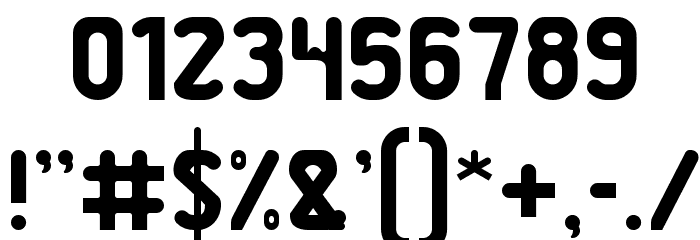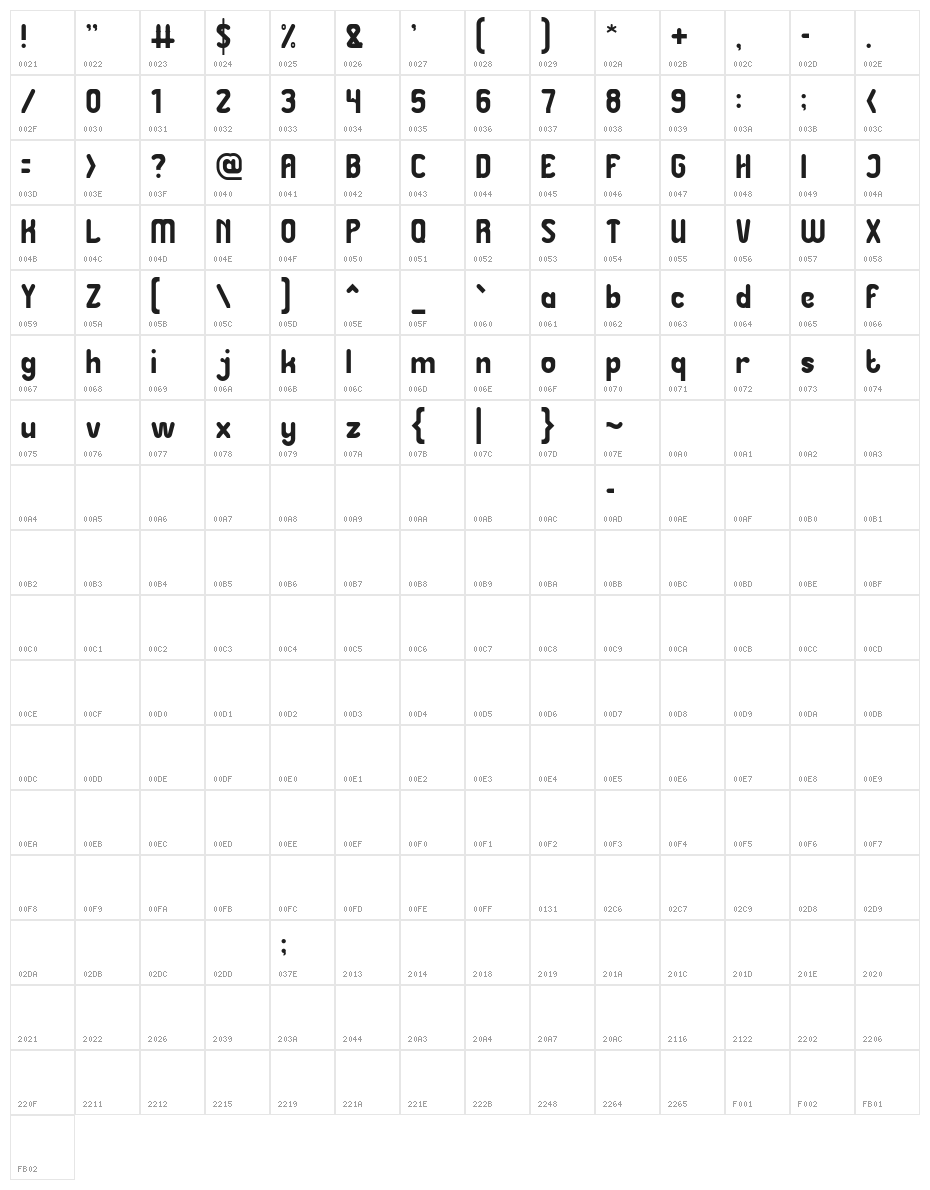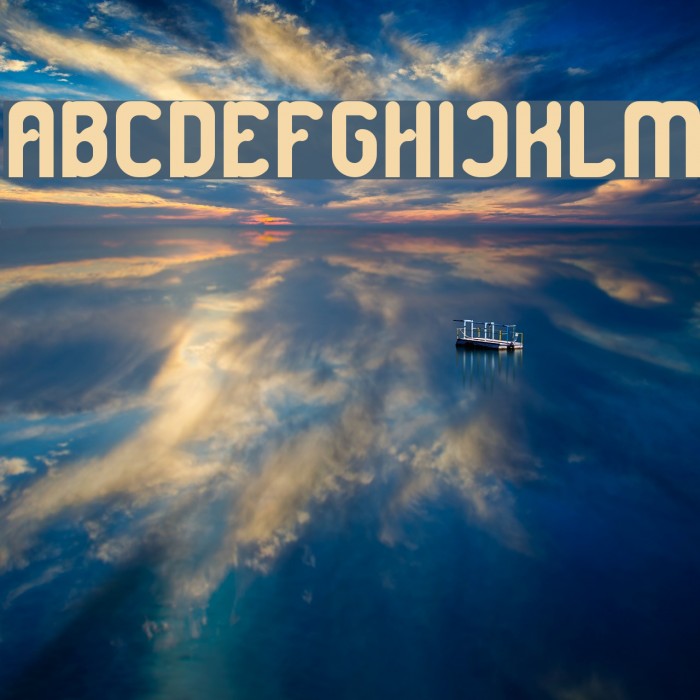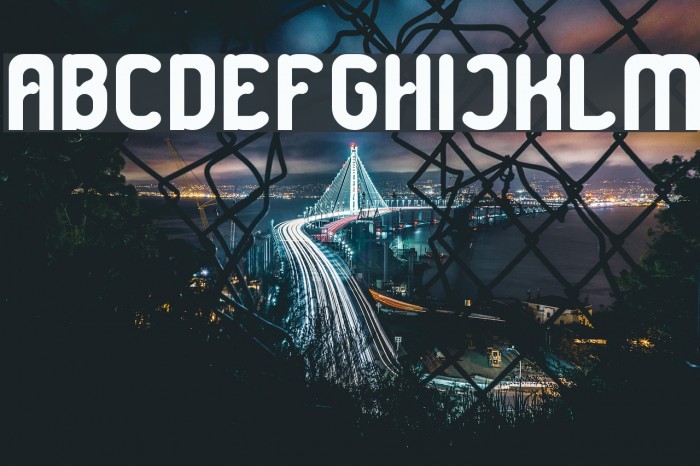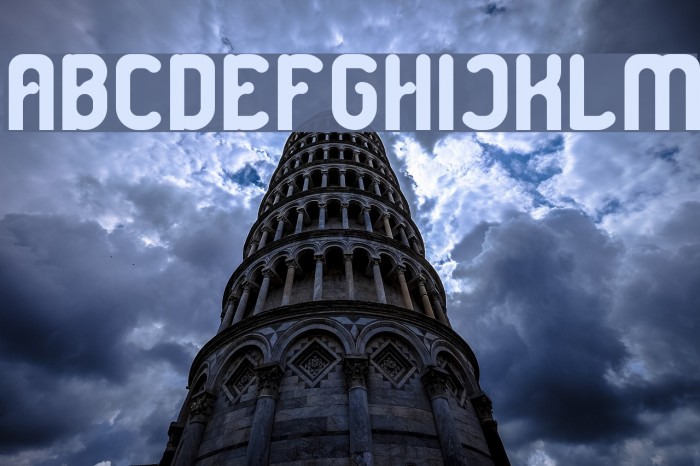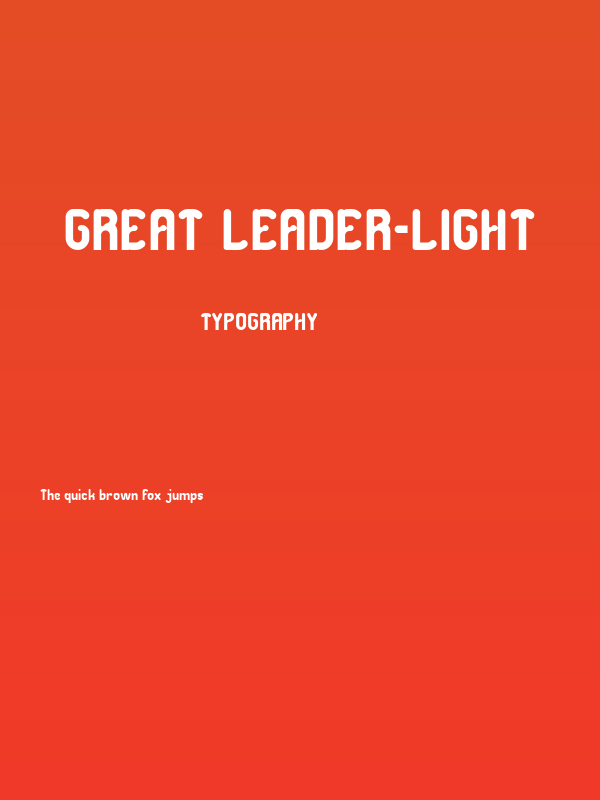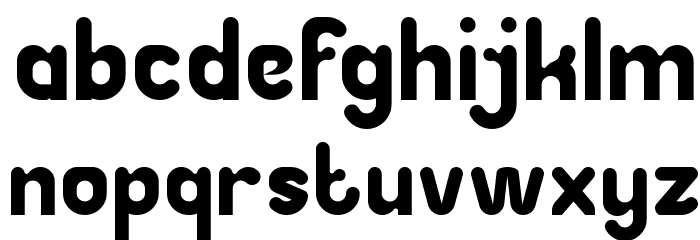
Great Leader-Light Font
Great Leader-Light Description
This font features a bold and rounded style with a playful yet structured appearance. The characters are uniformly thick, giving it a strong presence. The uppercase letters have a unique geometric form, while the lowercase letters maintain a consistent roundness. The numbers are clear and legible, matching the overall aesthetic. Special characters are well-integrated, maintaining the font's cohesive look. This font's design is both modern and approachable, making it suitable for a variety of applications.
| Proposed Projects | Ideal for branding, posters, children's books, and playful design projects. |